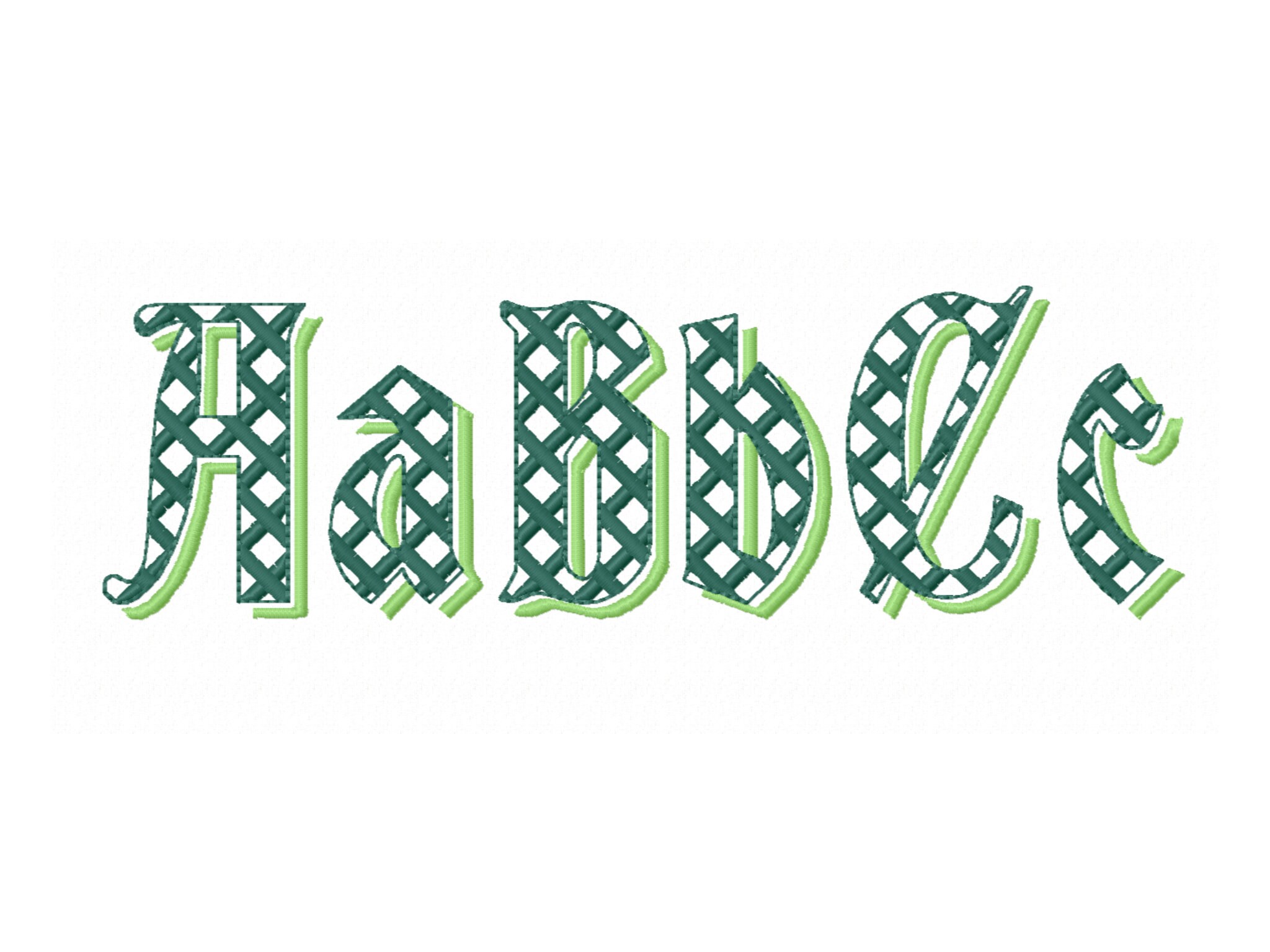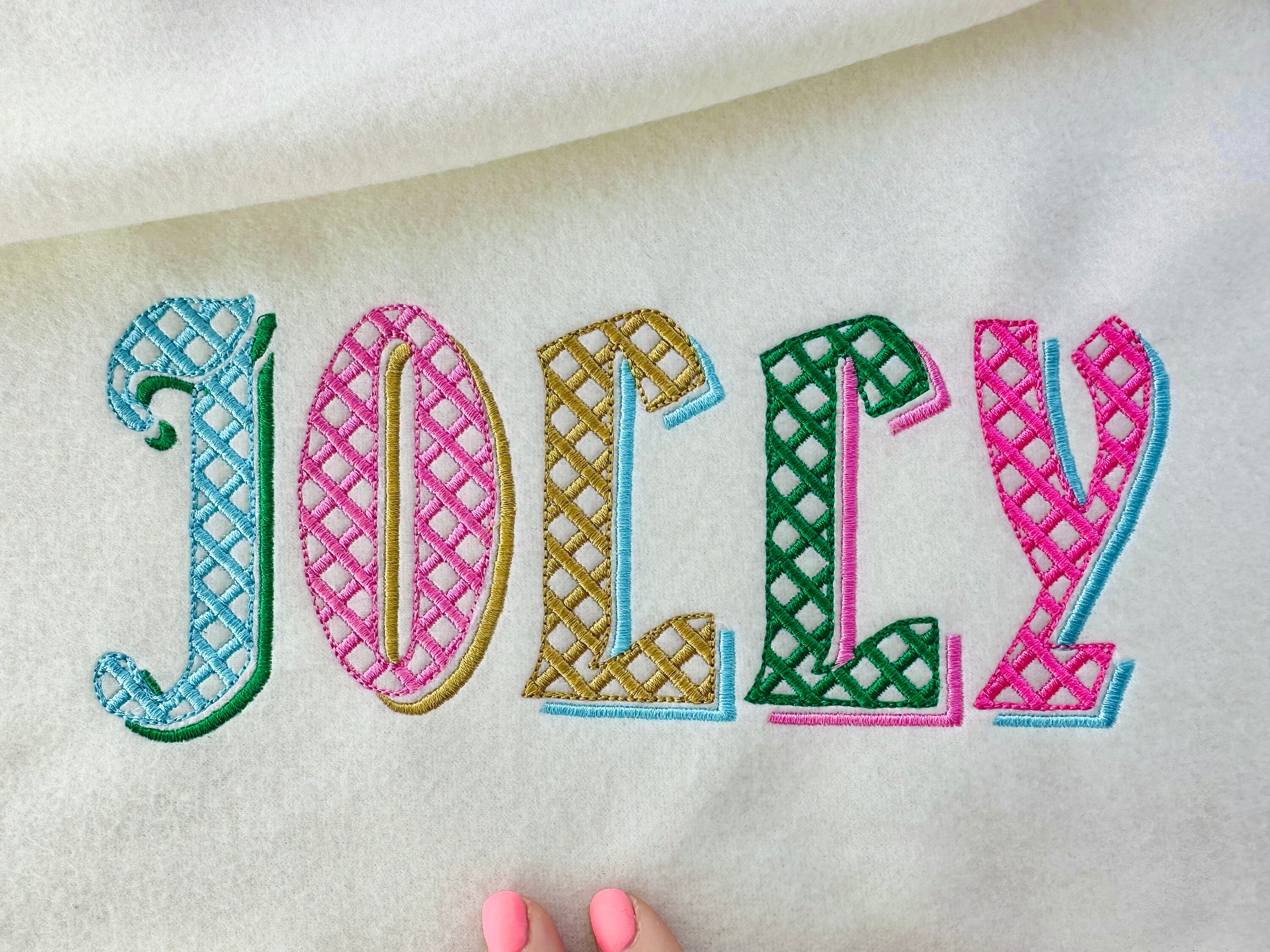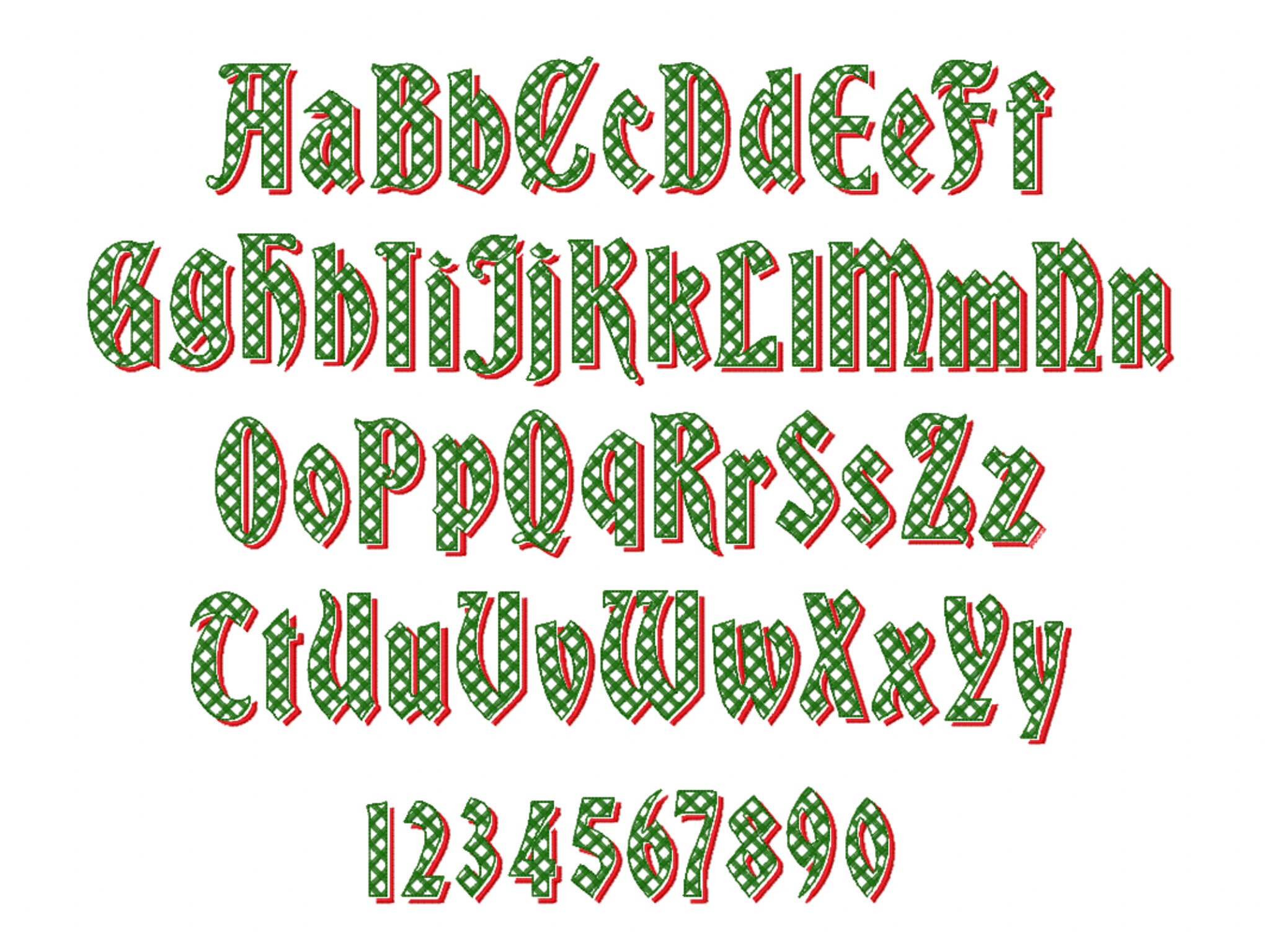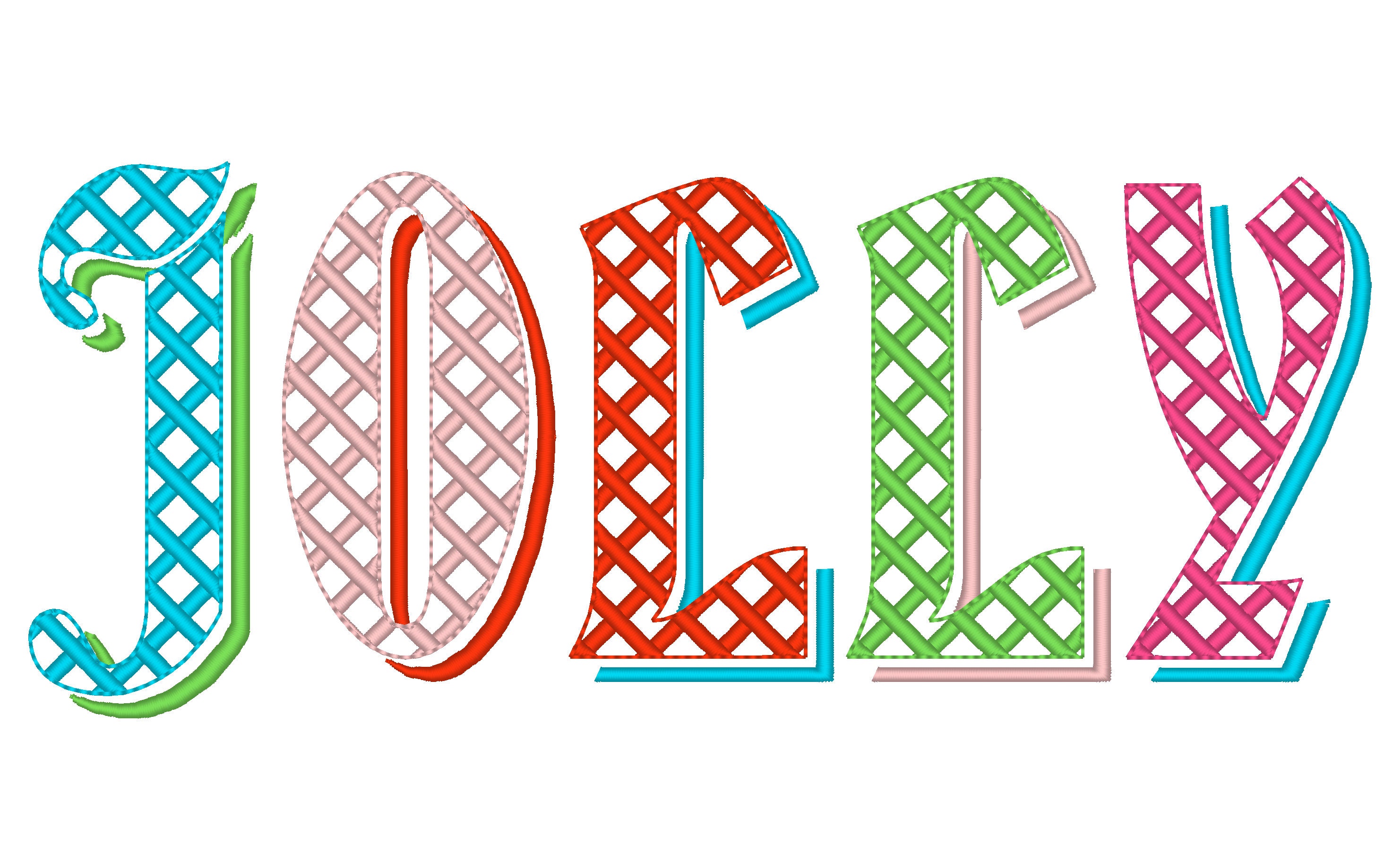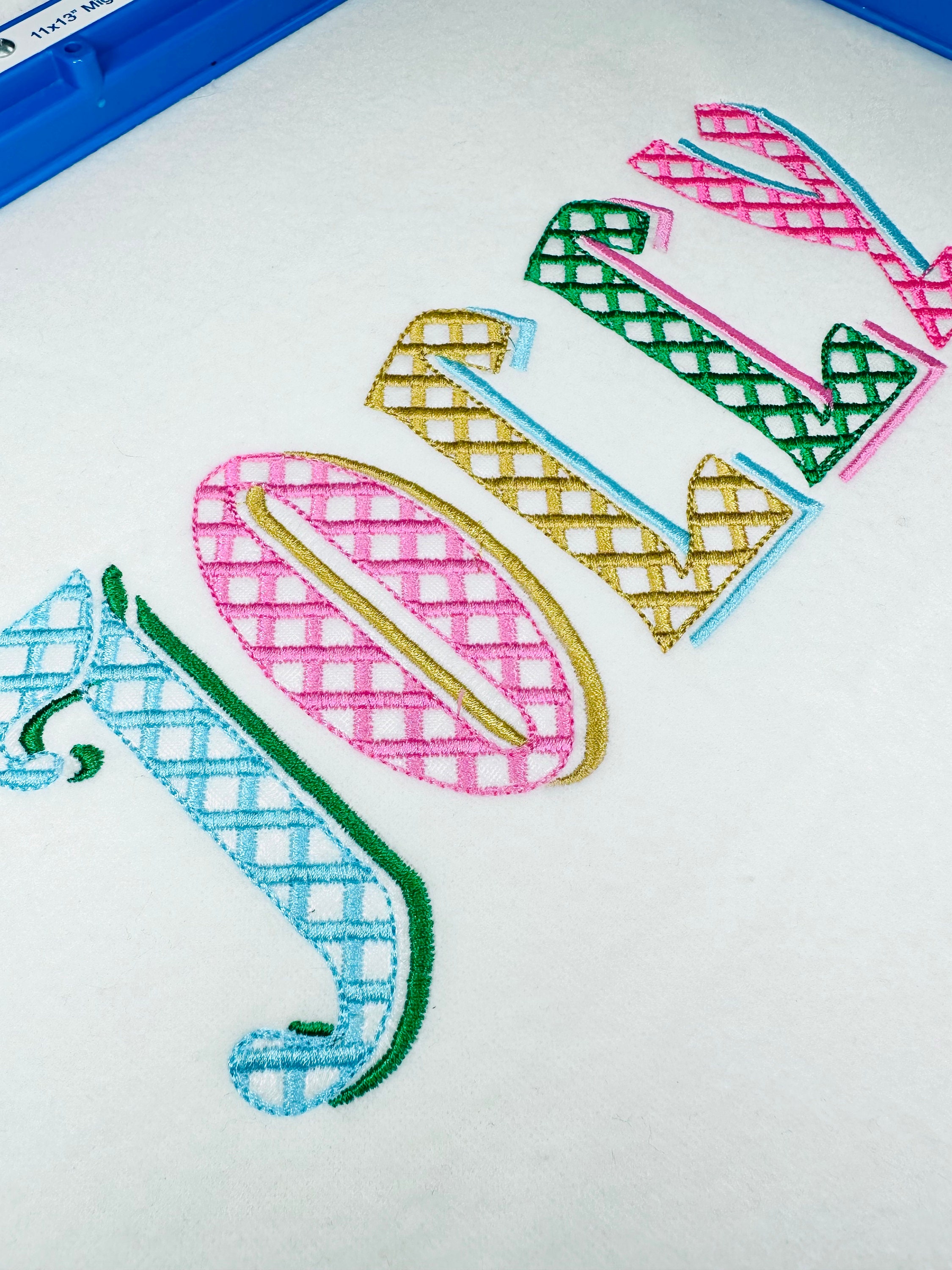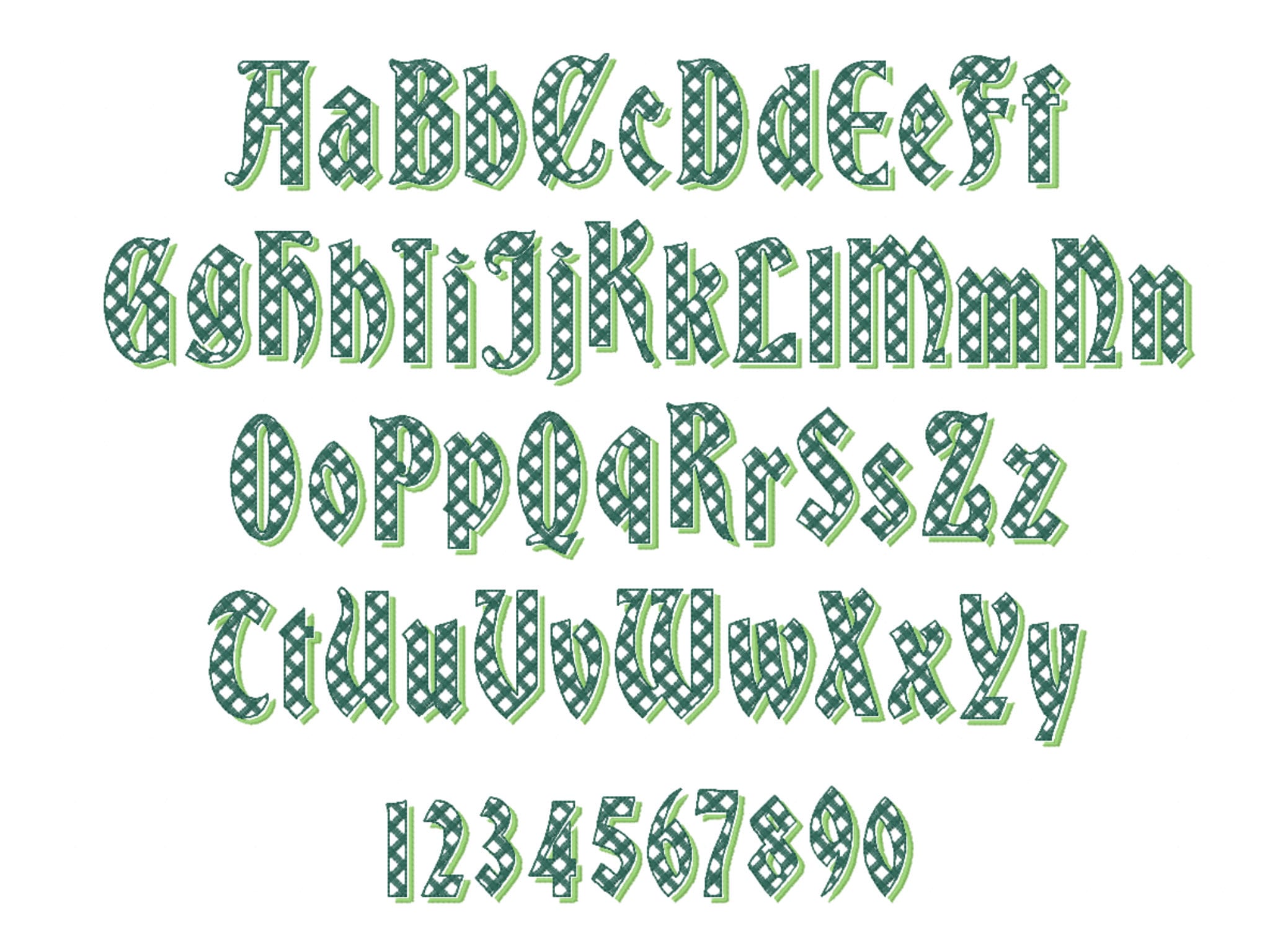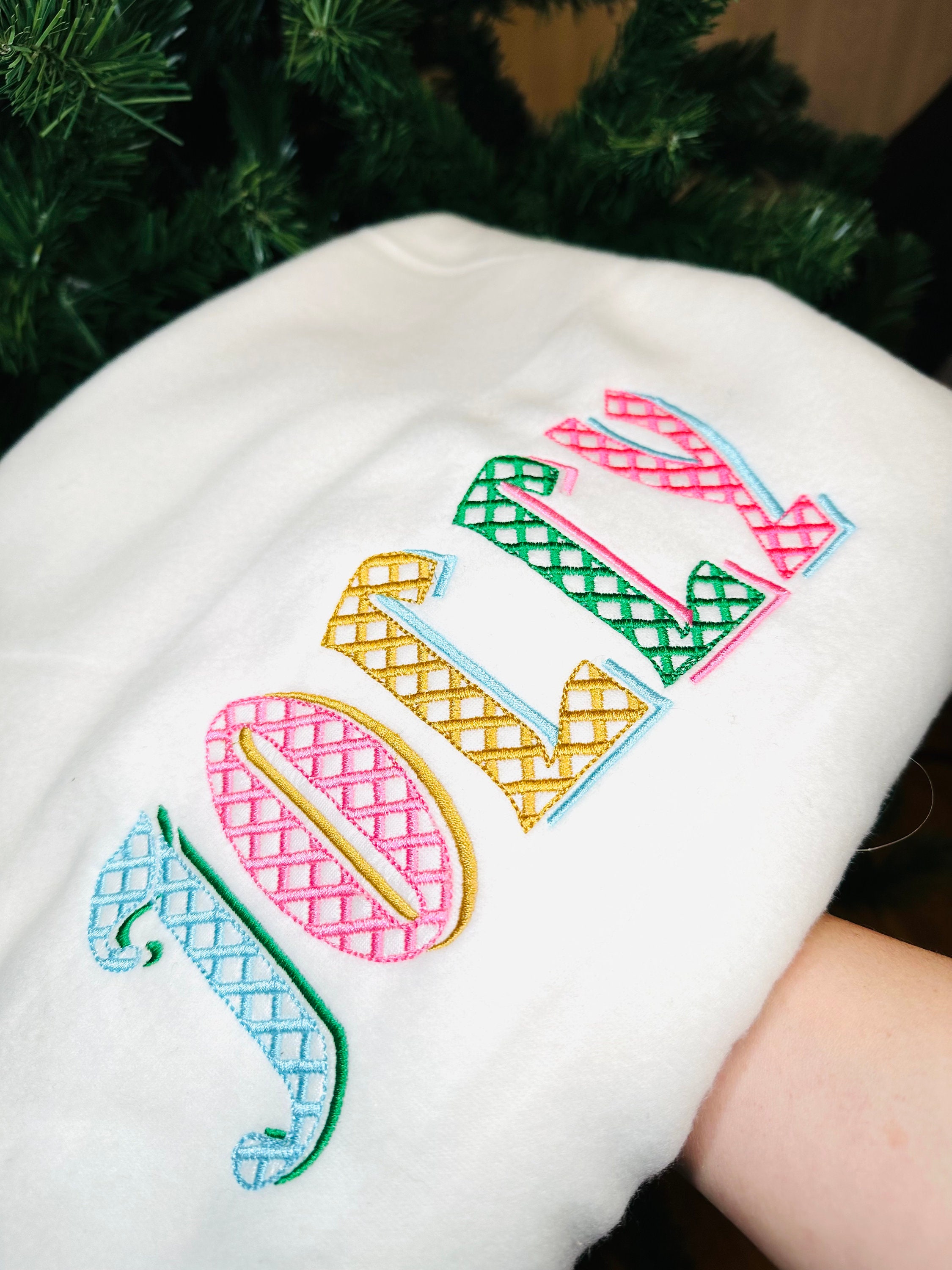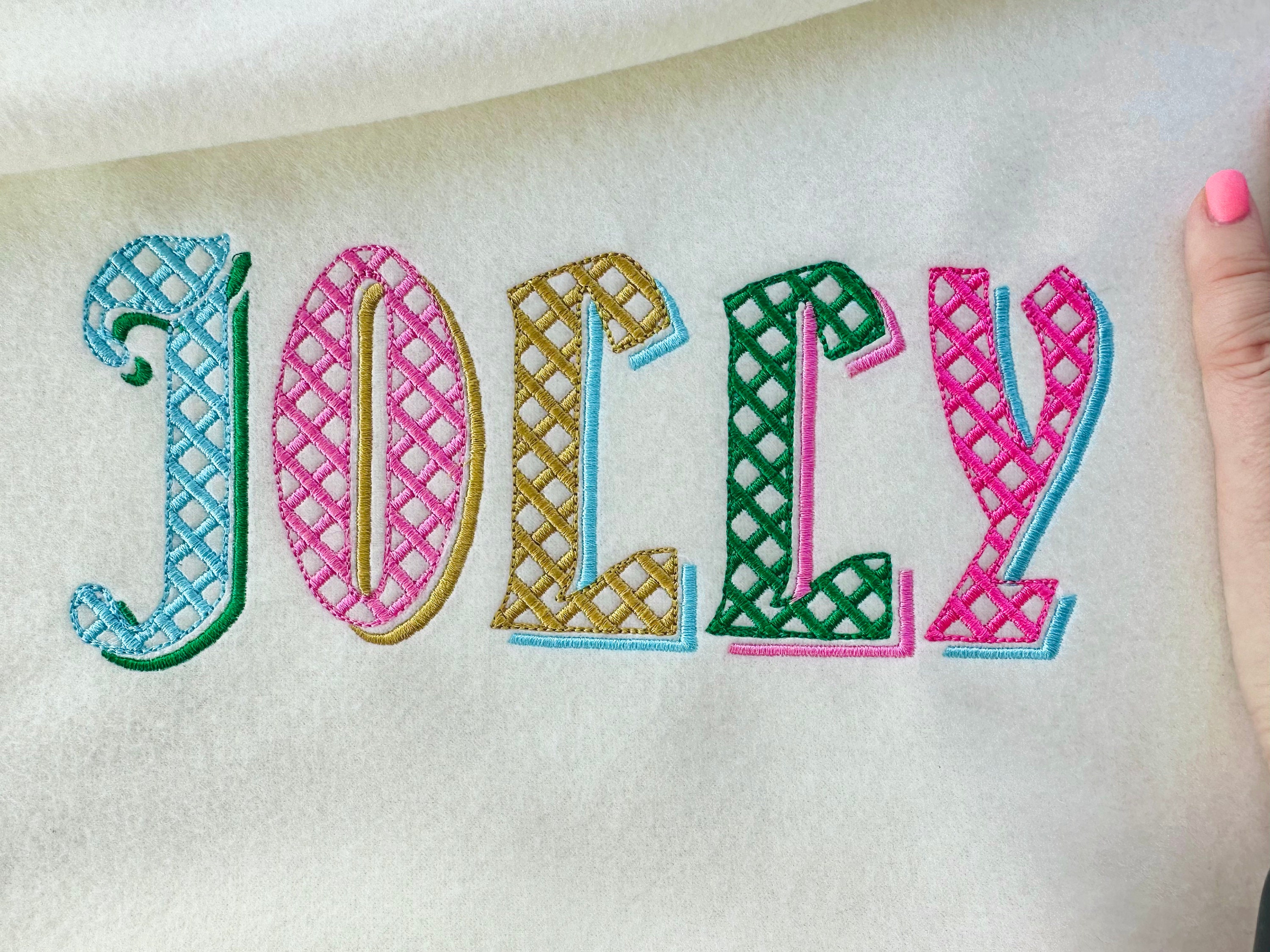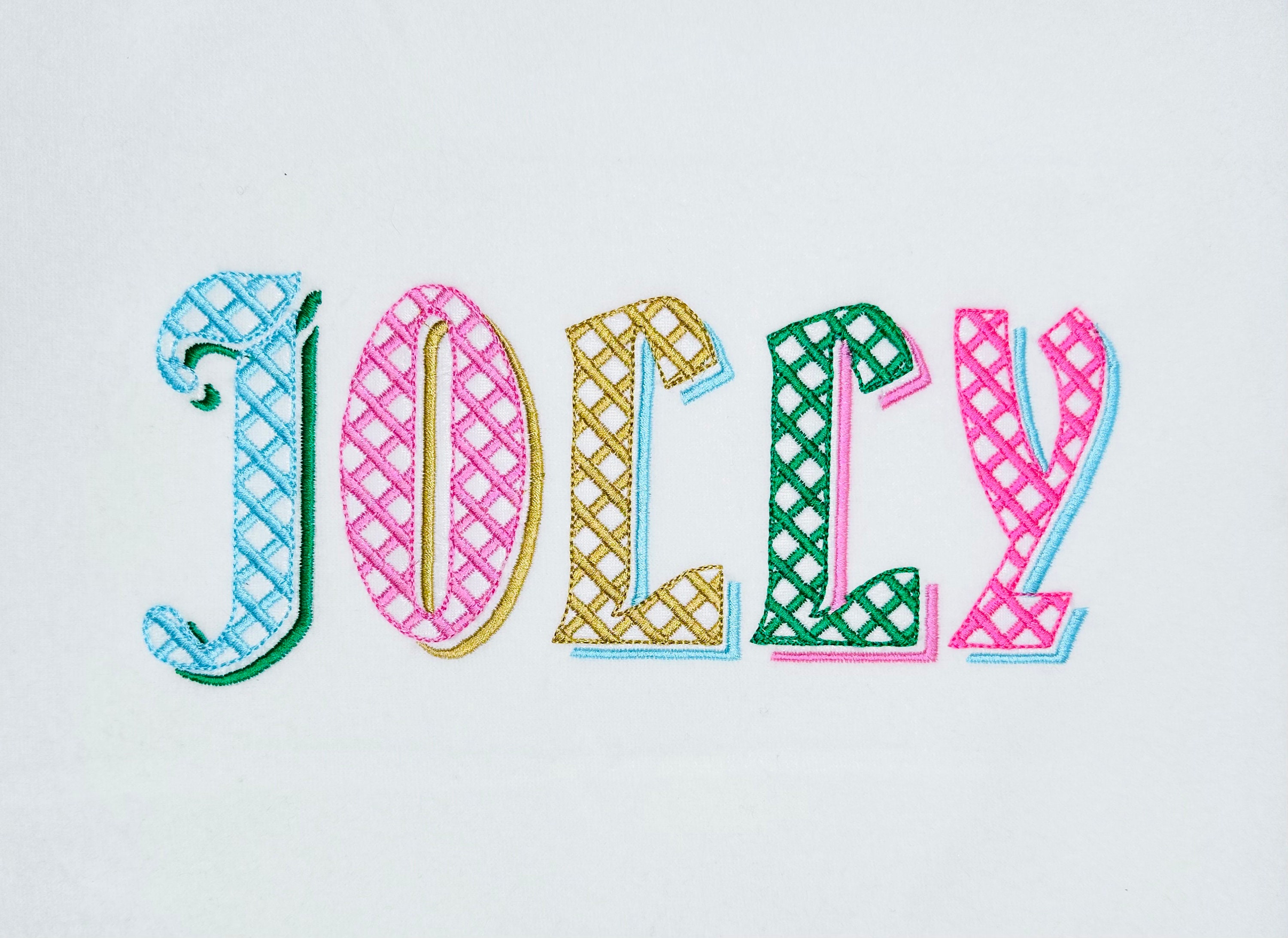
Christmas Shadow Font checkered alphabet letters and numbers light stitch machine embroidery designs monogram font with shadow BX included
Whole alphabet A-Z, uppercase and lowercase letters,
and numbers 0-9.
This is a light stitch design, the background fabric looks through. Stunning effect!